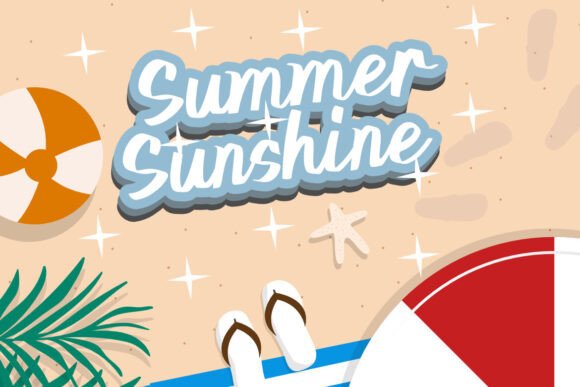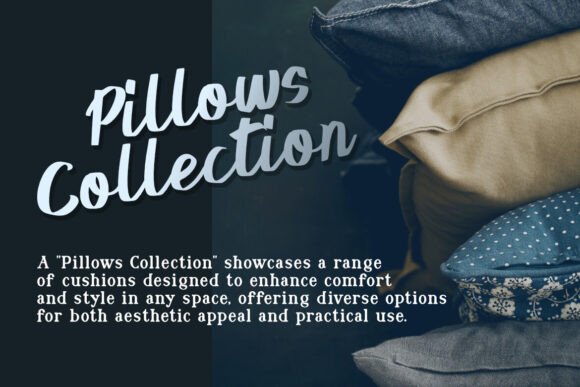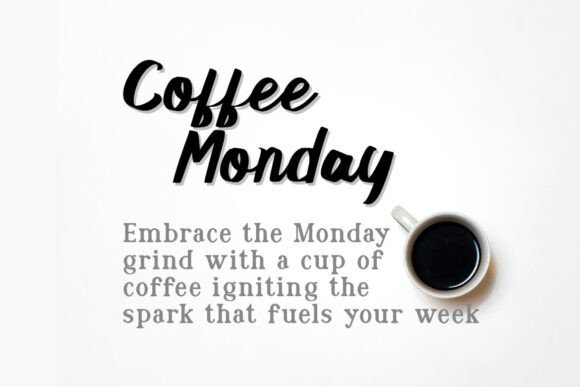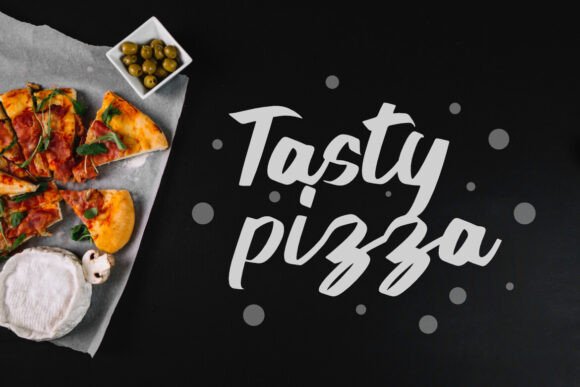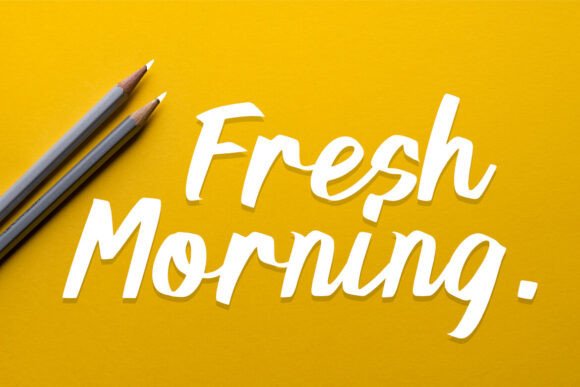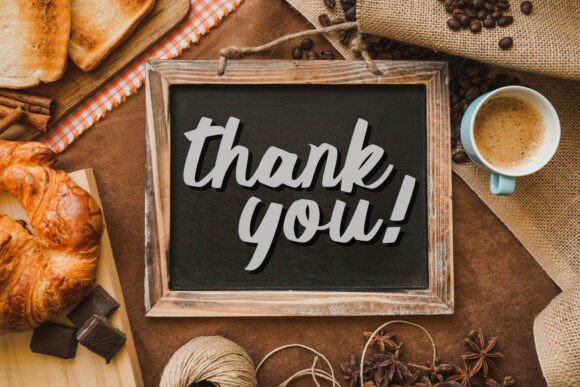
Introduction to Questag Font
Remember the thrill of brainstorming ideas for your next creative project? The rush of excitement as you envision the perfect design, the perfect font to bring it all together? That’s exactly what happened when the Questag Font was created – a high-quality script font designed to elevate your designs and leave a lasting impression.
Whether you’re working on a flyer, quote, poster, or packaging, the Questag Font is the perfect design resource to take your project to the next level. With its premium quality and versatility, this font is a valuable asset for designers looking to add a touch of sophistication and elegance to their work.
Key Features of Questag Font
- High-quality, professional font suitable for creative projects, such as logos, branding, and design materials.
- Designed with precision, resulting in crisp and clear text at high resolutions, ideal for printing and digital applications.
- Includes a wide range of characters and glyphs, making it a versatile design resource for various creative projects.
- Supports a wide range of languages, including English, Spanish, French, and many others, making it a great option for global design projects.
Honest Review: Questag Font
I recently had the chance to try out the Questag Font, and I’m excited to share my honest thoughts with you. As a designer, I’m always on the lookout for high-quality design resources that can elevate my creative projects.
- ✨ High-quality font: The Questag Font is crisp and clean, making it perfect for use in various design applications.
- ✨ Versatile: This font is great for both digital and print projects, thanks to its wide range of weights and styles.
- ⚠️ Limited customization options: While the font is versatile, it’s not as customizable as some other fonts on the market.
Common Use Cases for the Questag Font
The Questag Font is ideal for creative projects, such as logo designs, social media graphics, and presentations. Its unique design and high-quality resolution make it a great addition to any design resource collection.